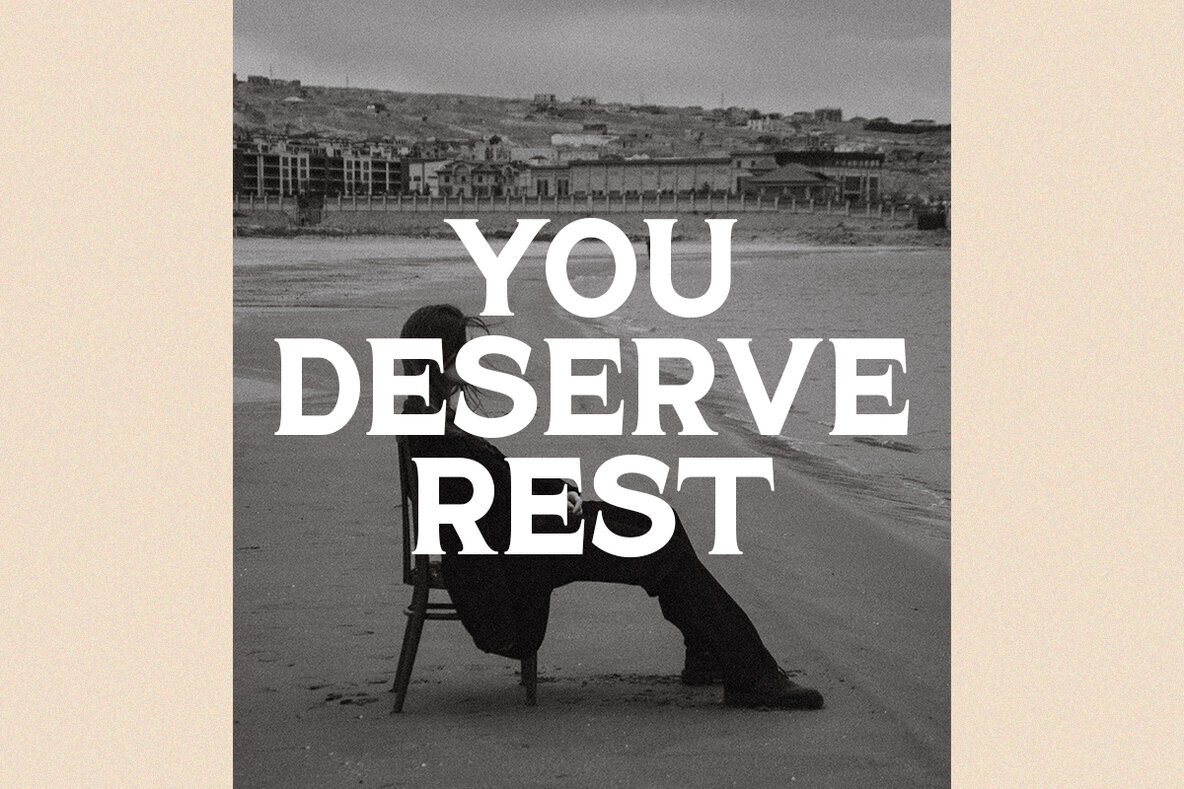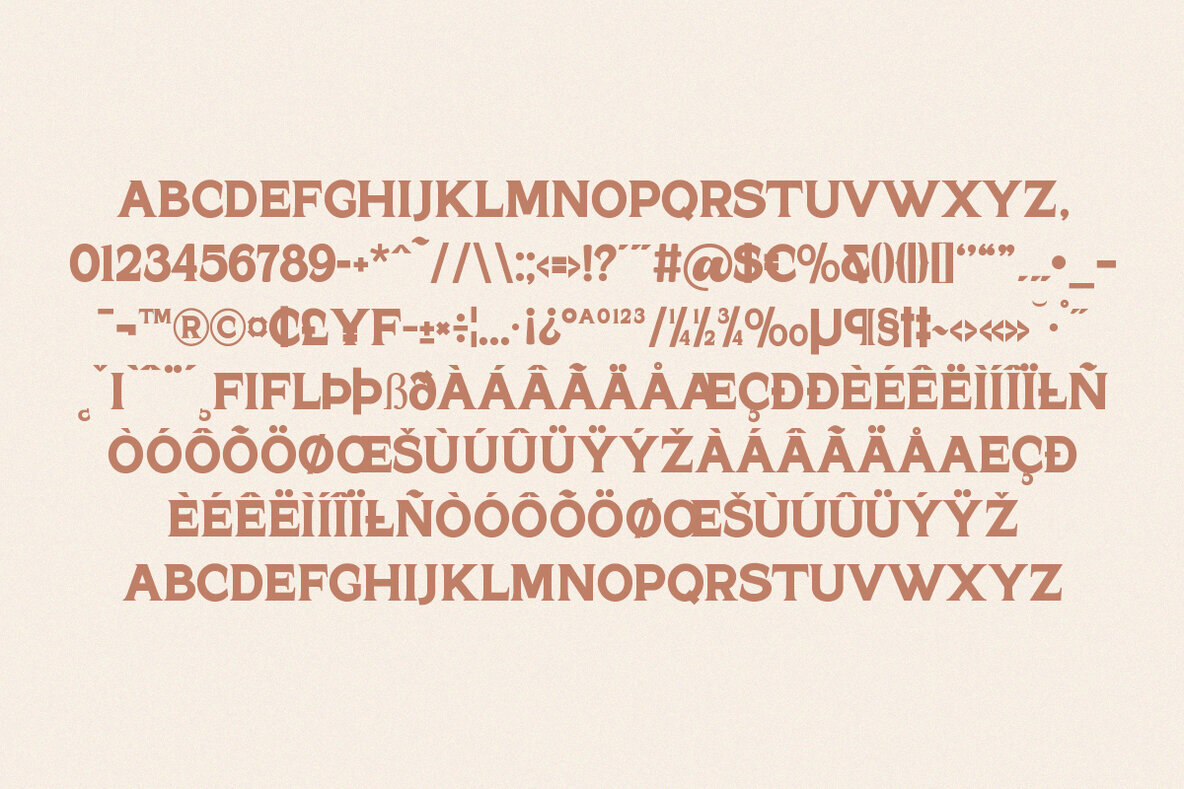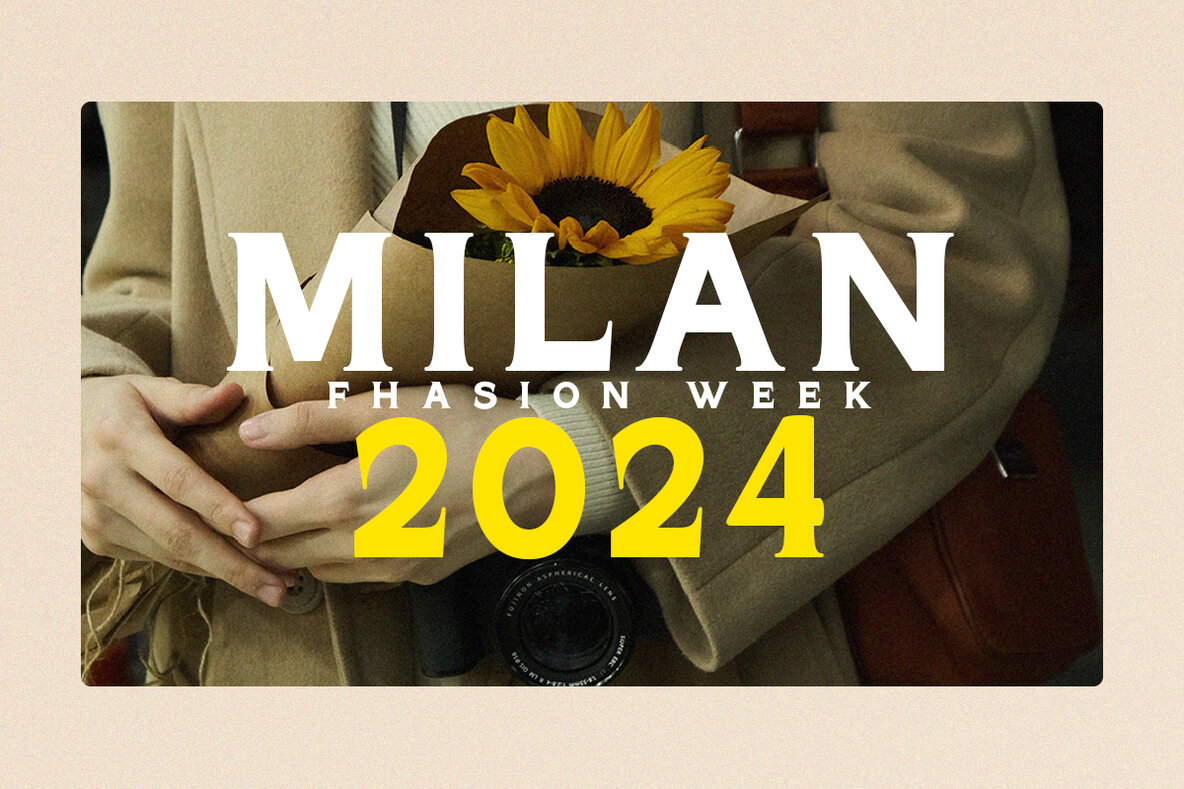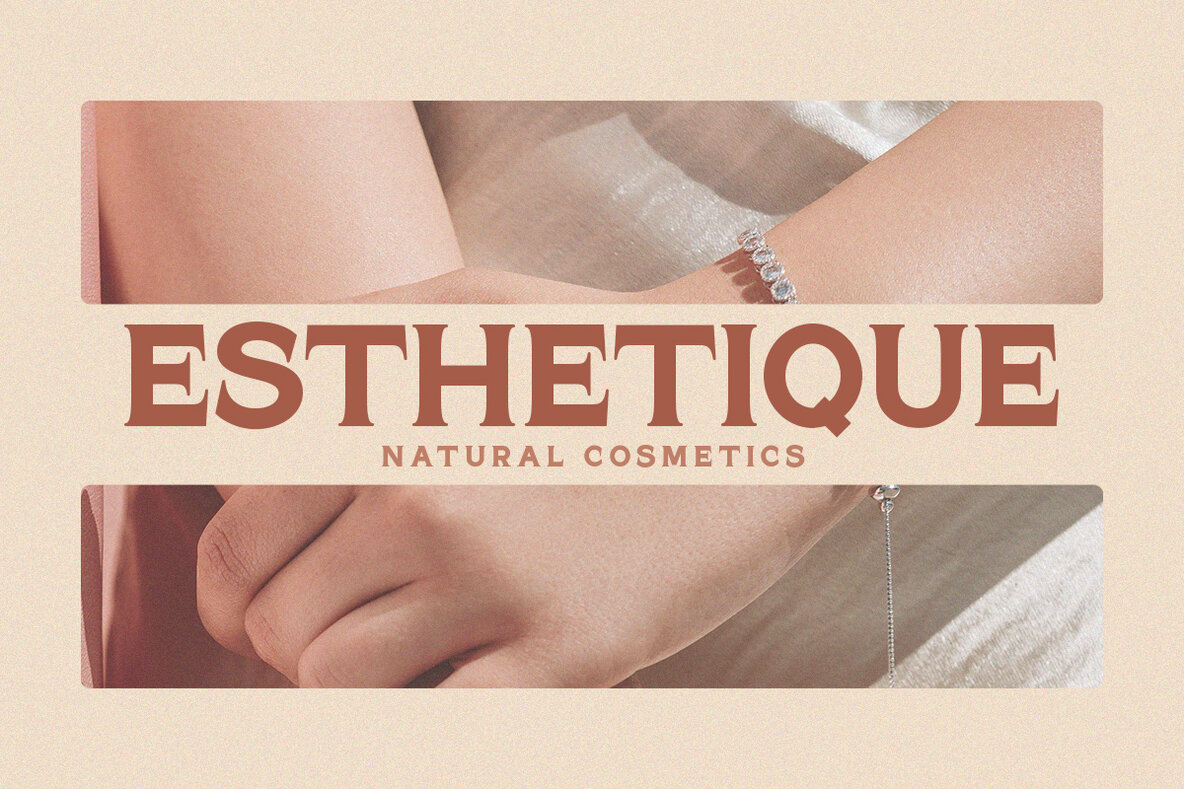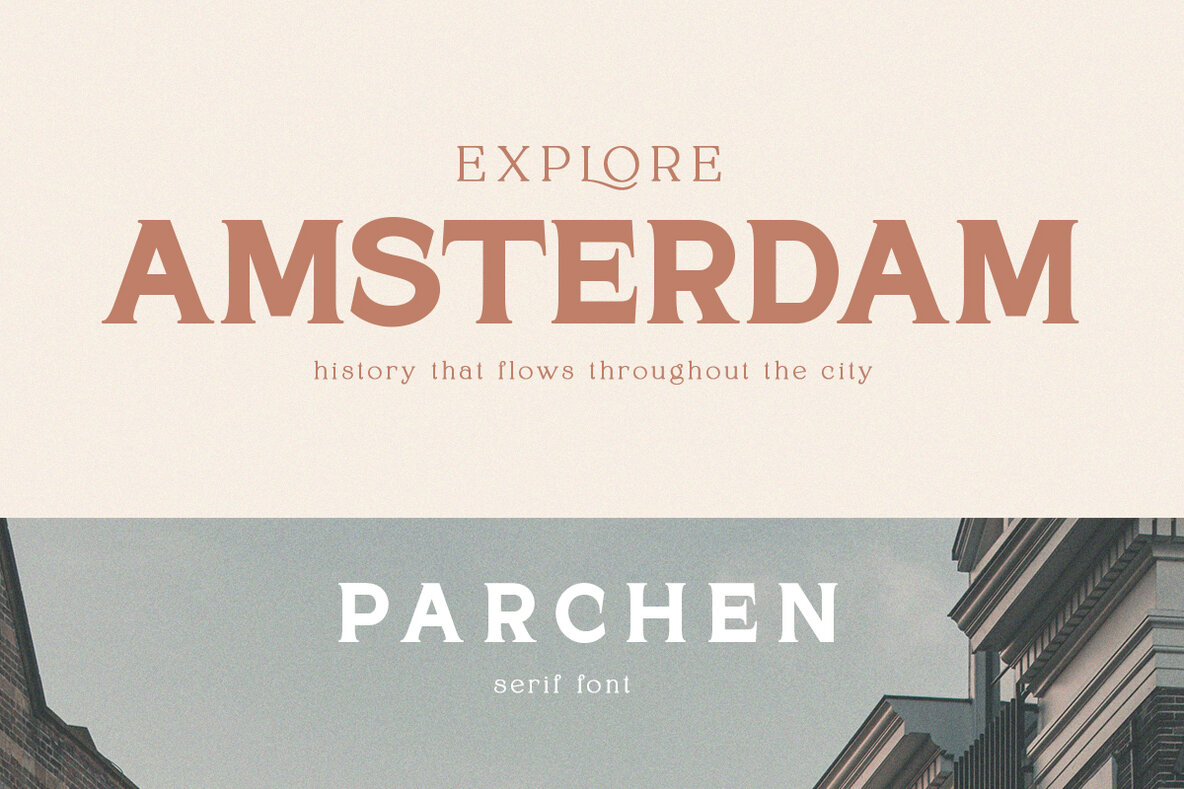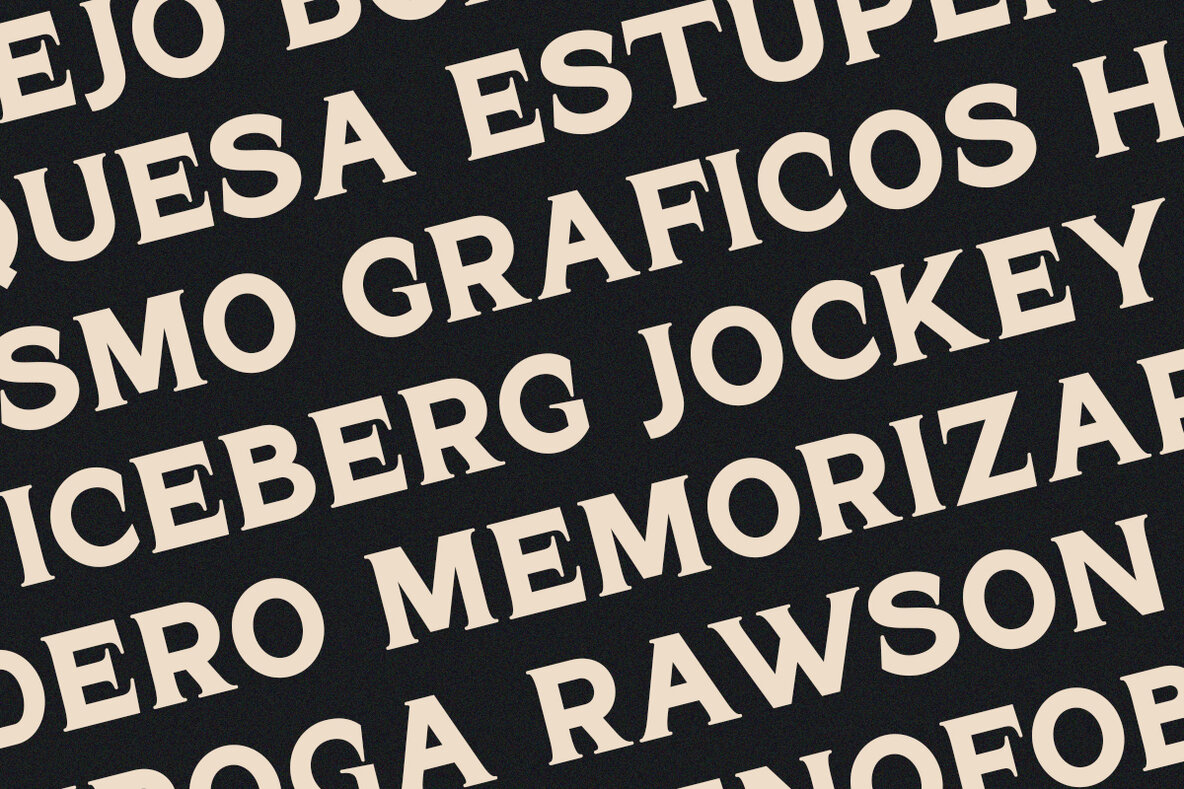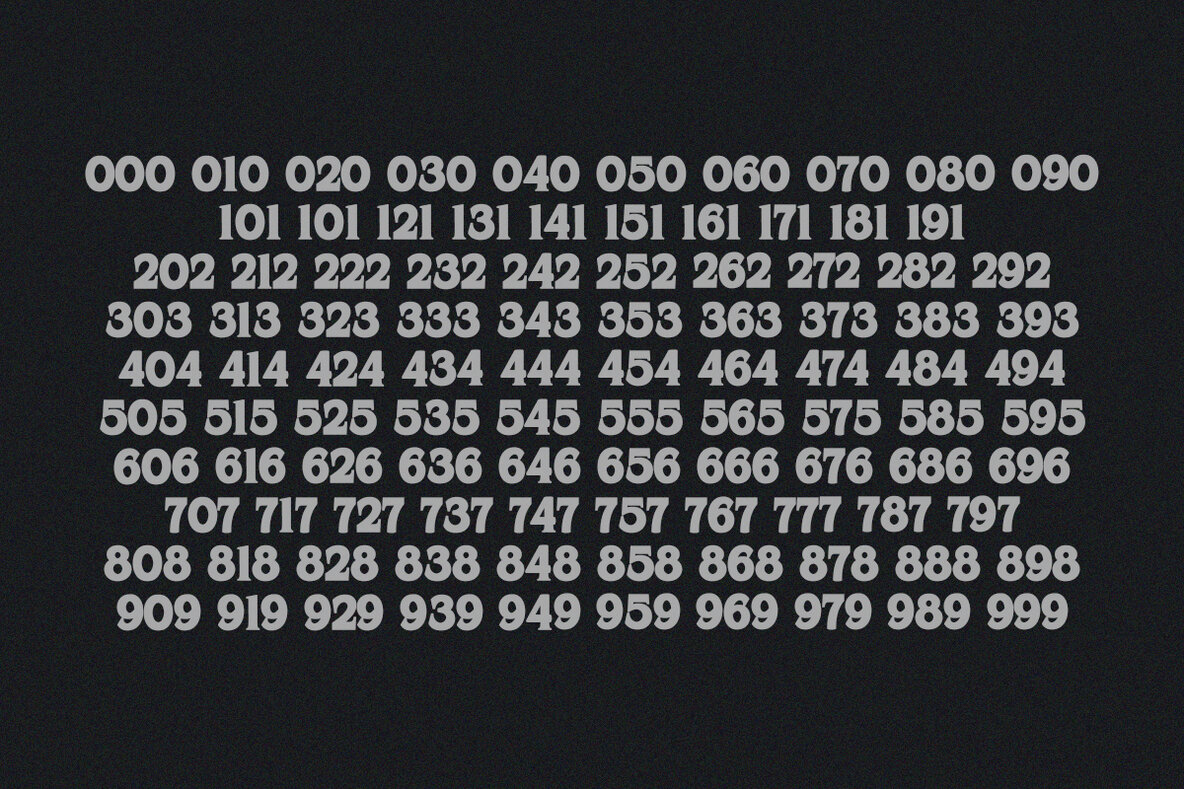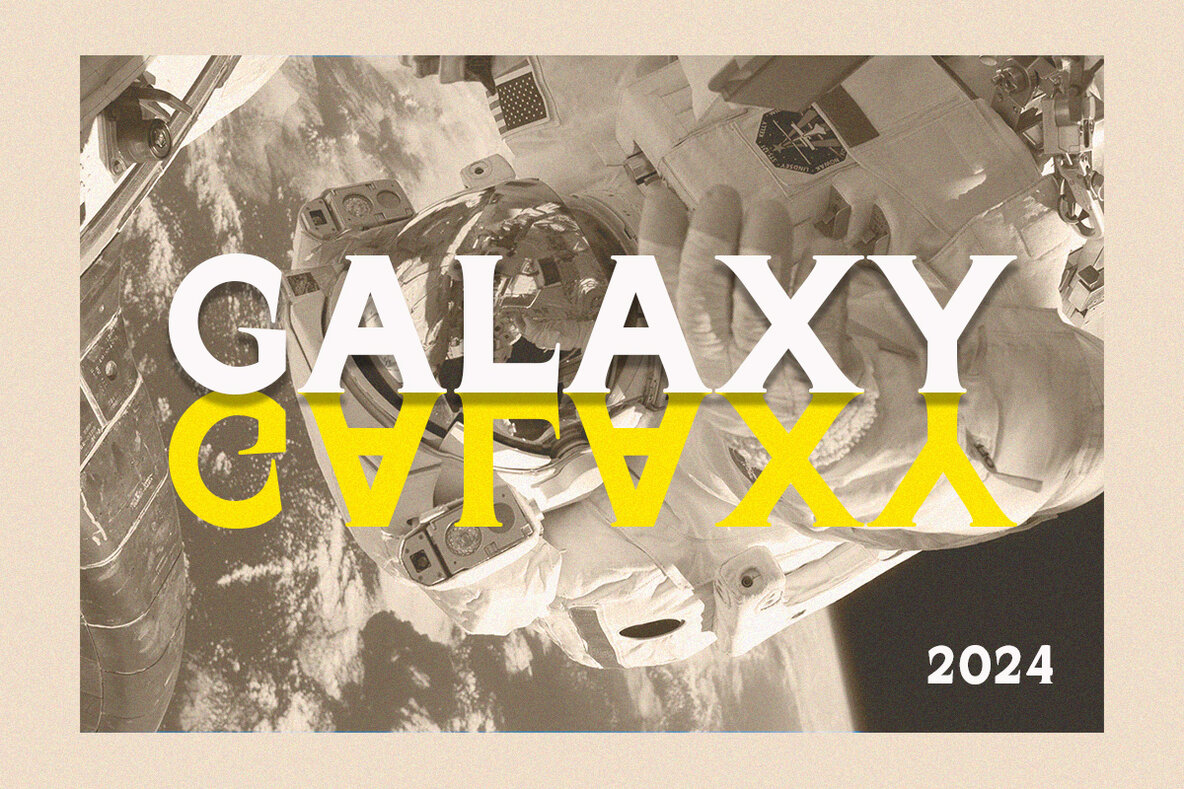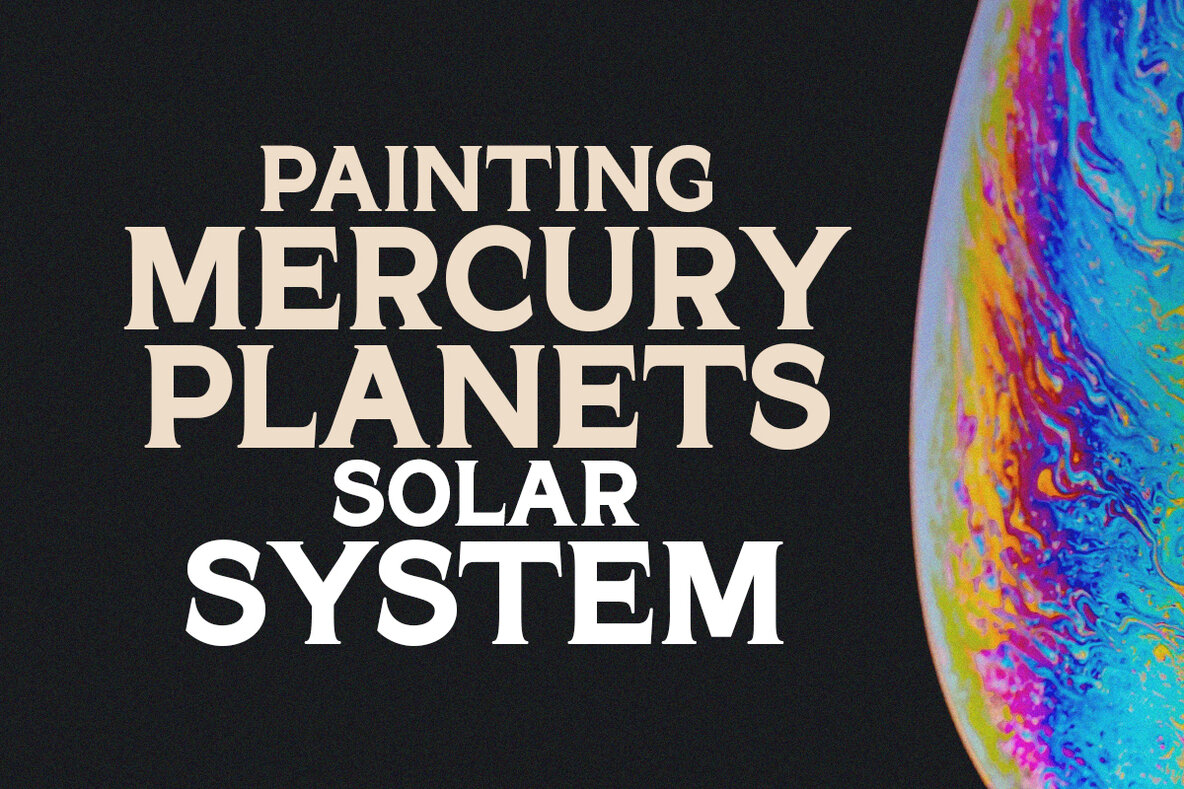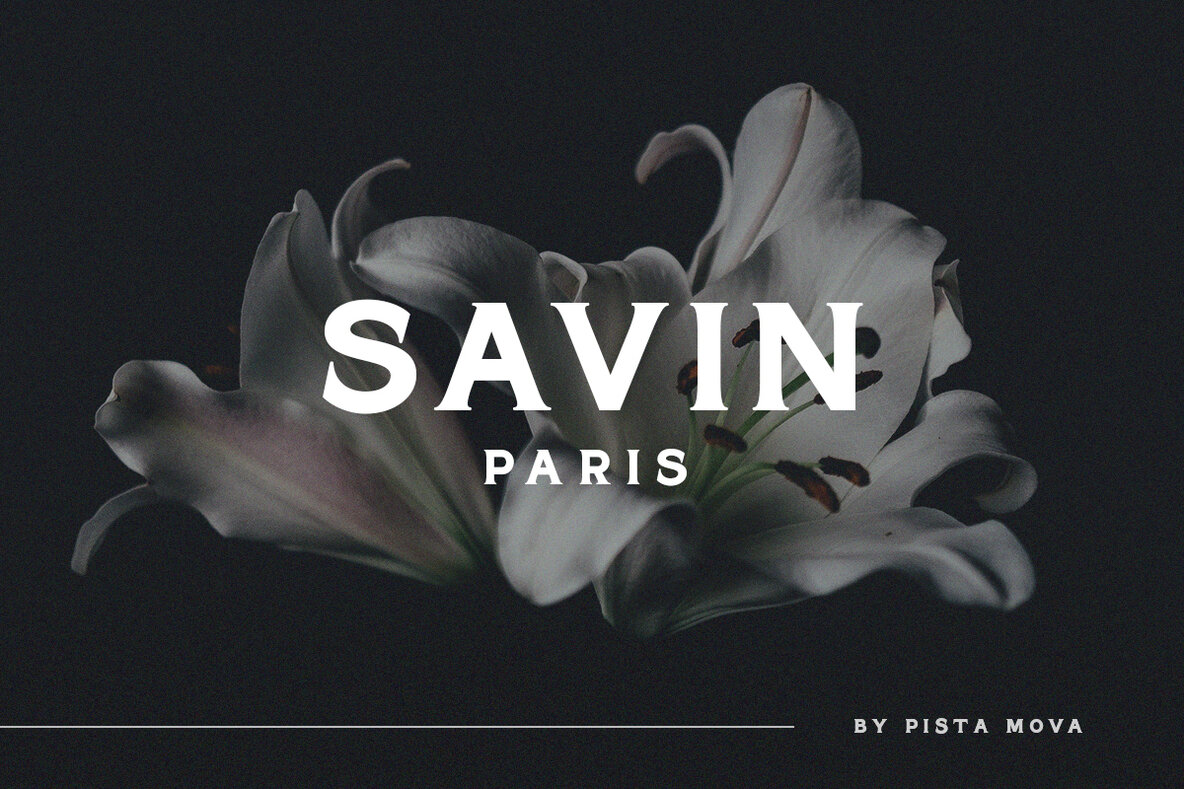
Parchen Font
Parchen is a distinctive and elegant font tailored for brand and logo designs. Drawing from extensive experience in graphic design, this font was crafted to meet the demand for logos that merge unique style with an elegant form. Ideal for creating brands and logos that stand out, Parchen ensures a sophisticated aesthetic. We hope you enjoy Parchen. If you have any questions, feel free to reach out for assistance.Parchen: A Classy and Unique Font for Logos